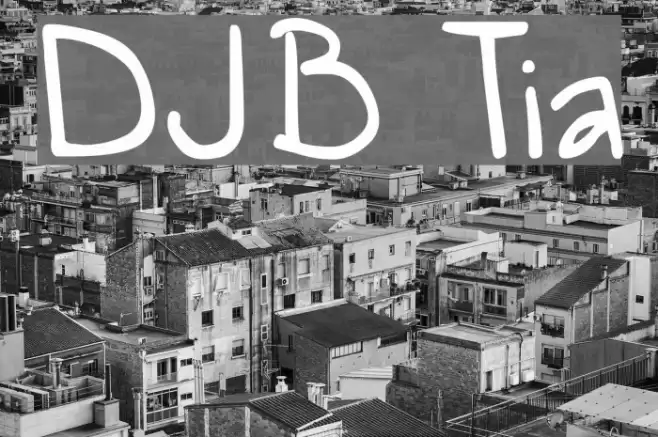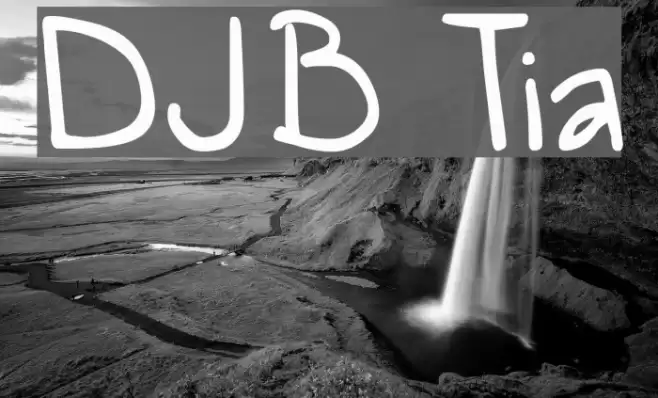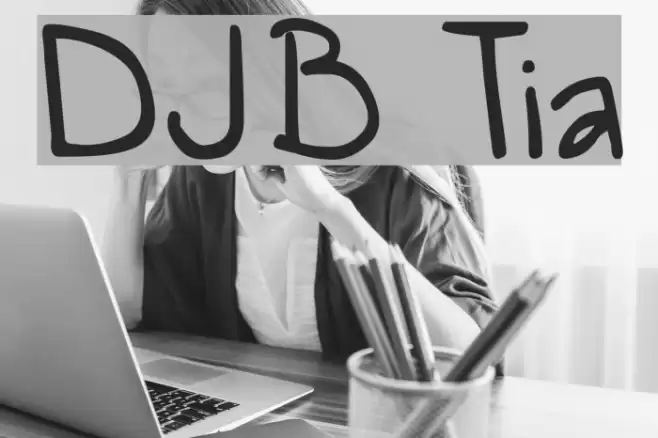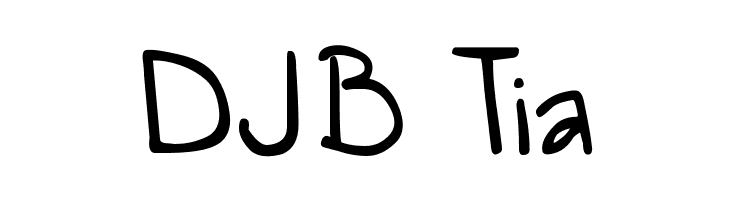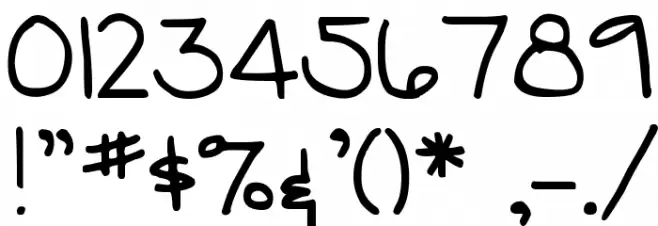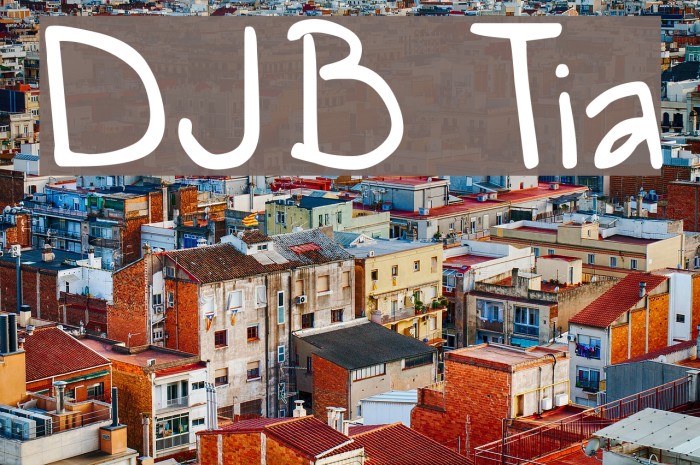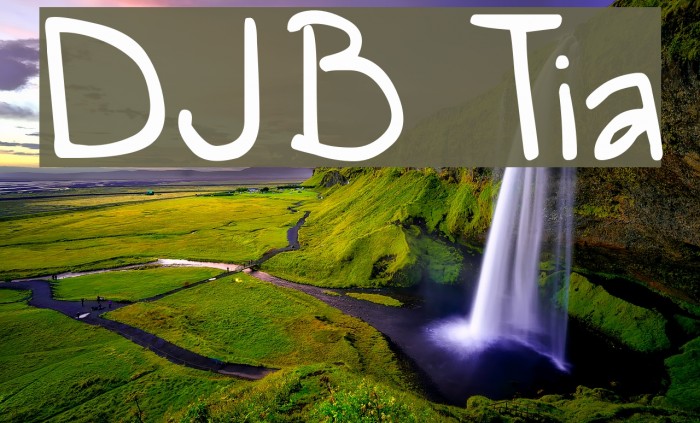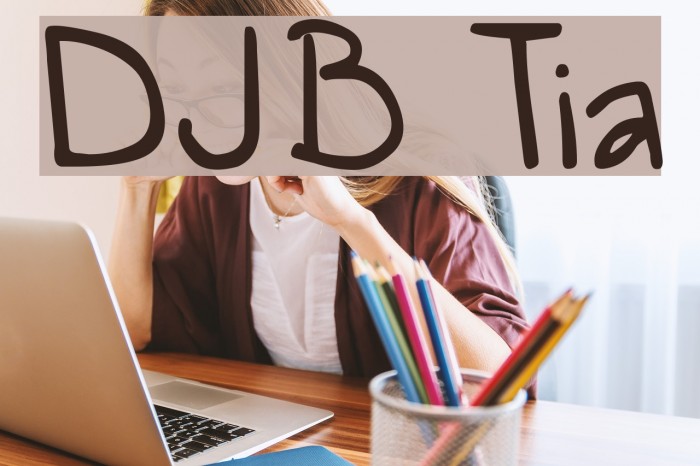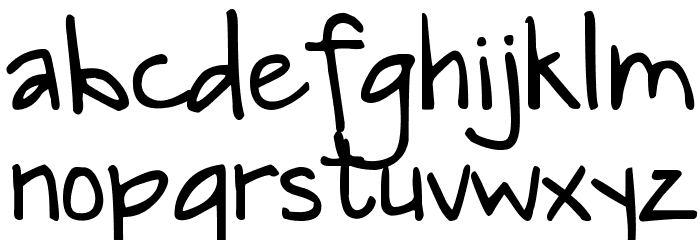
DJB Tia Font
DJB Tia Description
This playful and informal handwritten font exudes a casual and friendly vibe. The characters are slightly irregular, adding a personal touch that mimics natural handwriting. The strokes are smooth and rounded, giving it a soft appearance. It maintains a consistent line weight throughout, which contributes to its legibility. The font features a mix of straight and curved lines, with some letters having unique, quirky elements, such as the loop in the lowercase 'g' and the distinctive tail of the lowercase 'y'. Overall, it conveys a sense of approachability and creativity.
A playful, informal handwritten font with smooth, rounded strokes from Uncategorized fonts.
- Proposed Projects: Ideal for personal projects, children's books, greeting cards, and casual branding.
- Overall Style: Casual
- Use Case: Greeting cards, Children's books, Casual branding